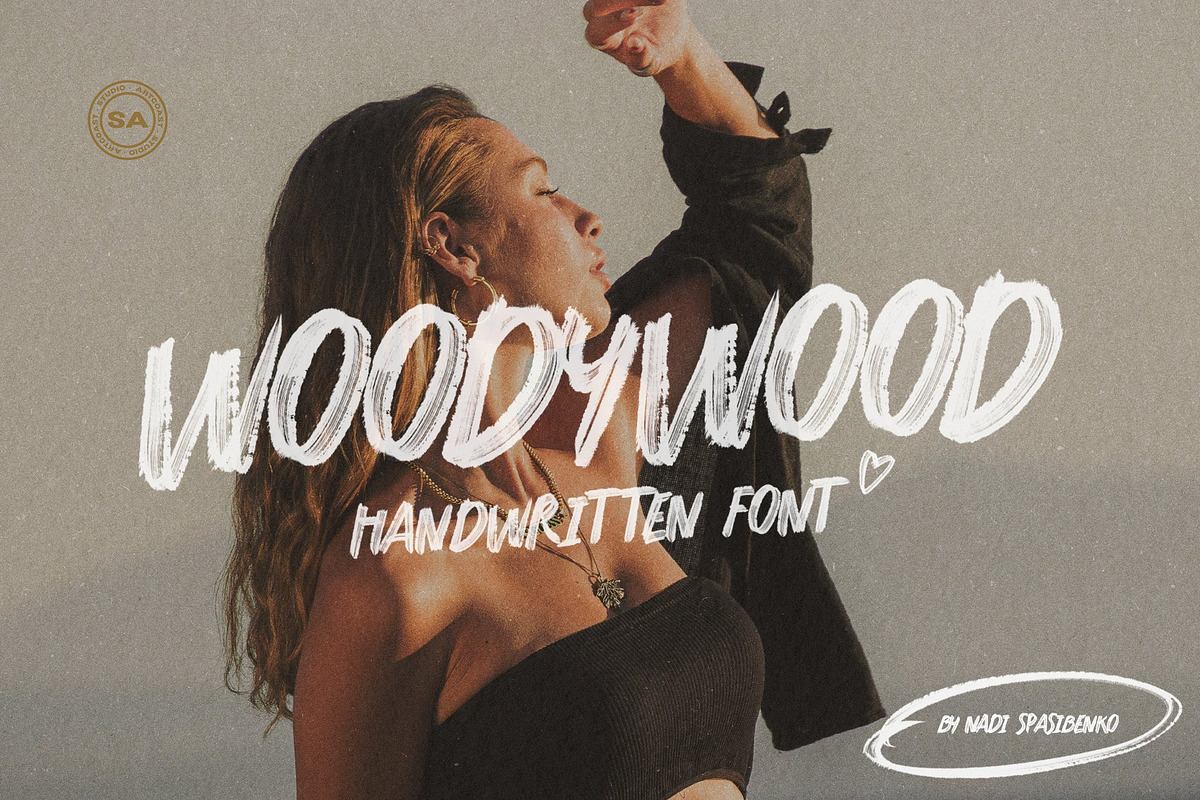
Woody Wood Font Free Download is a fun, rustic typeface that brings a handcrafted, woodsy charm to your designs. Please note, you are required to purchase this font for commercial use. It is available for free download for testing and personal projects only.
Inspired by nature and hand-carved lettering, Woody Wood is perfect for adventure-themed branding, outdoor gear packaging, posters, signage, and creative children’s designs. Its organic texture and playful personality give it a warm, approachable feel that stands out in both print and digital formats.